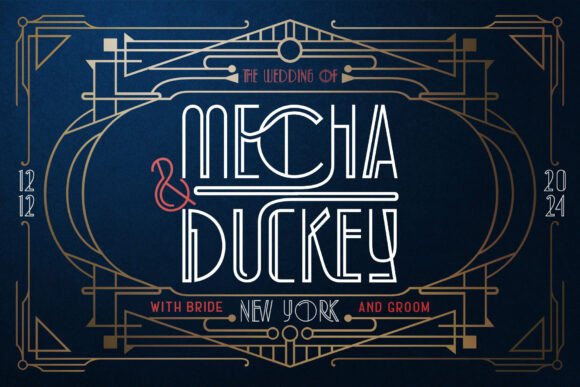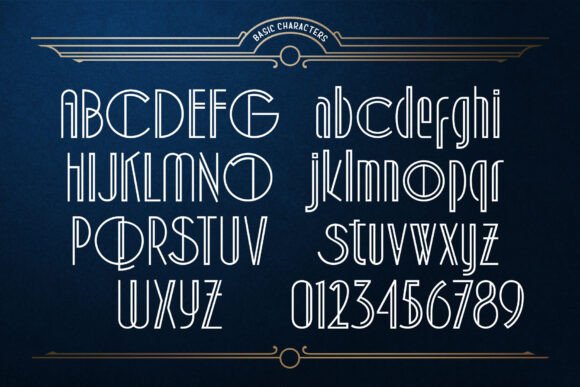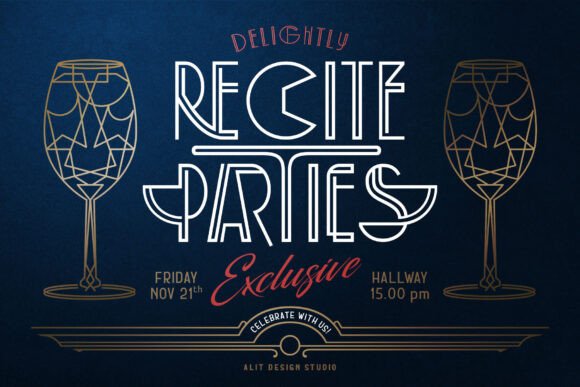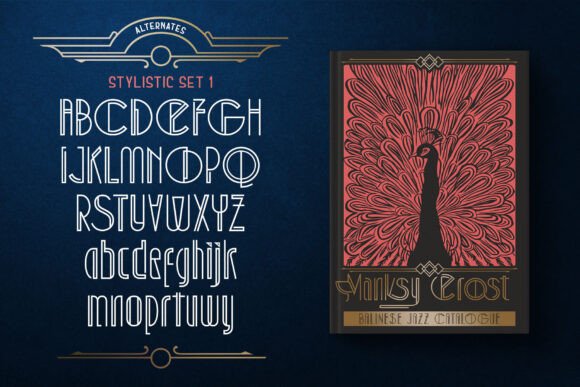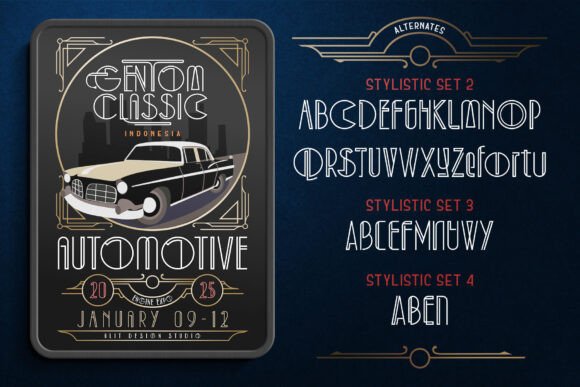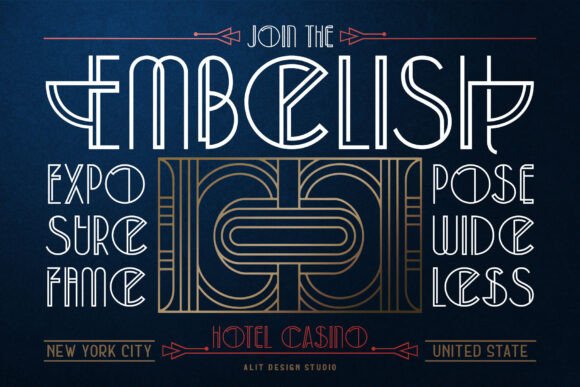
Introducing Art Decory Font: Timeless Luxury Meets Bold Creativity
In the world of typography, few styles evoke the same level of sophistication and elegance as Art Deco. This iconic design movement, popularized in the 1920s and 1930s, is characterized by its geometric shapes, metallic materials, and ornate decorations. For designers and crafters looking to infuse their projects with a sense of luxury and glamour, the Art Decory Font is an inspired choice. This exquisite typeface is meticulously crafted to capture the essence of Art Deco, with a modern twist that ensures it remains fresh and versatile.
The Art Deco Movement: A Legacy of Luxury and Sophistication
The Art Deco movement was a cultural phenomenon that influenced not only design and architecture but also fashion, art, and literature. Its popularity stemmed from a desire to break free from traditional and ornate styles, embracing instead a modern, streamlined aesthetic. Characterized by its use of geometric shapes, bold lines, and metallic materials, Art Deco exudes opulence and sophistication. From the iconic skyscrapers of Manhattan to the luxurious ocean liners of the era, Art Deco’s impact on design is still celebrated today.
Art Decory Typeface: A Modern Interpretation of Art Deco Elegance
Art Decory Font is an elegant and sophisticated typeface that draws inspiration from the geometric and ornate features of Art Deco. With its clean lines, precise curves, and meticulous details, this font embodies the luxury and glamour of the Art Deco era. The Art Decory Typeface is designed to add a touch of timeless sophistication to any design project, whether it’s a branding campaign, a packaging design, or a digital interface. Its modern twist ensures that it remains versatile and adaptable, suitable for a wide range of applications.
Key Features of Art Decory Font
- Geometric Precision: Art Decory Font boasts precise geometric shapes, reminiscent of the Art Deco movement’s emphasis on clean lines and angular forms.
- Elegant Lines: The font’s lines are carefully crafted to evoke a sense of luxury and sophistication, perfect for designs that require a touch of elegance.
- Ornate Details: Art Decory Font features intricate details and ornamentation, adding depth and visual interest to any design.
- Modern Twist: The font’s modern interpretation ensures that it remains fresh and relevant, suitable for contemporary design projects.
Applications of Art Decory Font
Art Decory Font is an incredibly versatile typeface, suitable for a wide range of design applications. Here are a few ideas to get you started:
- Branding and Logo Design: Use Art Decory Font to create a luxurious and sophisticated brand identity that exudes elegance and refinement.
- Packaging Design: Add a touch of glamour to your packaging designs with Art Decory Font, perfect for high-end products and luxury goods.
- Digital Interfaces: Use Art Decory Font to create stunning digital interfaces that showcase your brand’s personality and style.
- Print Design: Art Decory Font is perfect for print designs that require a touch of sophistication, such as business cards, brochures, and posters.
Art Decory Font is an exceptional typeface that embodies the elegance and sophistication of the Art Deco movement, with a modern twist that ensures it remains fresh and versatile. Its meticulously designed features make it perfect for adding a sense of timeless luxury and bold creativity to any design project. Whether you’re a designer, crafter, or simply someone who appreciates beautiful typography, Art Decory Font is an inspired choice for anyone looking to elevate their designs to new heights of sophistication and glamour.